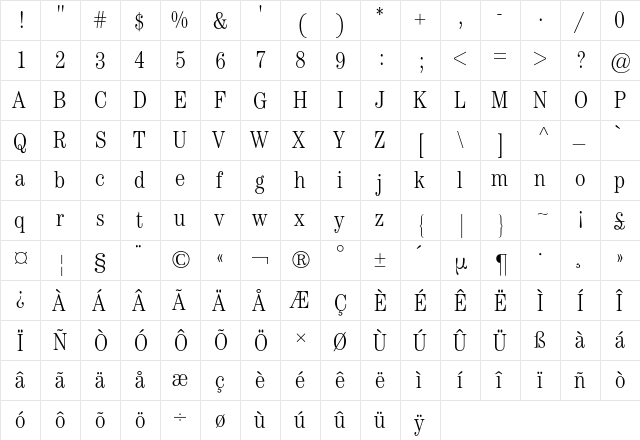
Century ITC BQ Regular
Design Context for Century ITC BQ Typeface
Century ITC BQ is a composed and adaptable typeface that performs quietly and consistently across a wide range of design contexts.